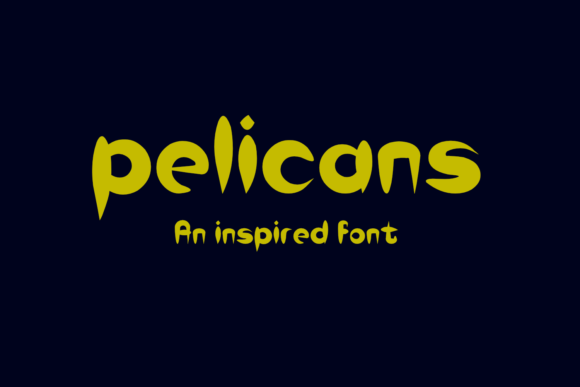
Welcome to the realm of Pelicans Font, a display font that oozes fun and casual vibes, striking the perfect balance between trendy and timeless. Its playful spirit and charming imperfections add a touch of whimsy to your creative projects, making them stand out from the ordinary.
Dive into the depths of Pelicans Font's character set, and you'll discover a world of unique glyphs, each meticulously crafted to convey a sense of joy and vibrancy. From eye-catching headlines to playful invitations, the possibilities are endless with this versatile font.
Pelicans Font is not just another font; it's an experience. A companion that accompanies you on your creative journey, transforming ordinary words into captivating expressions. Its effortless flow and graceful curves bring life to your designs, captivating your audience with its undeniable charm.
Whether you're a seasoned designer or just starting out, Pelicans Font is your perfect partner in creativity. Its user-friendly nature makes it accessible to all, while its versatility ensures that you'll never run out of innovative ways to express yourself.
Unleash your imagination and watch as Pelicans Font transforms your digital designs, presentations, and greeting cards into masterpieces of visual delight. Its enchanting presence adds a touch of magic to every project, leaving a lasting impression on your audience.
So, dive into the world of Pelicans Font today and embark on a creative adventure where your imagination knows no bounds. Let its playful spirit ignite your passion and create designs that speak volumes.